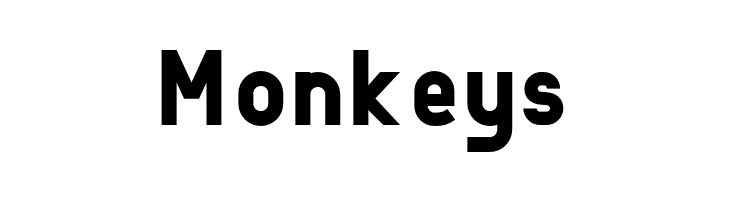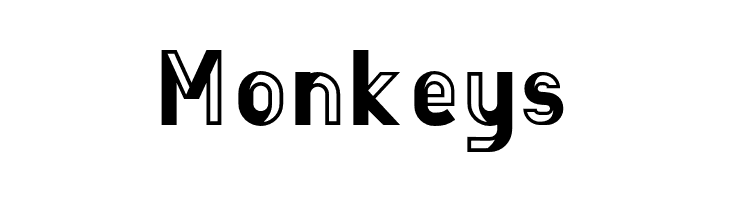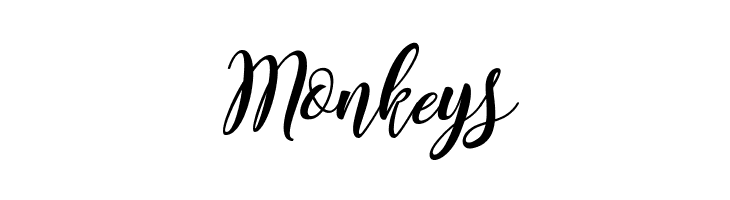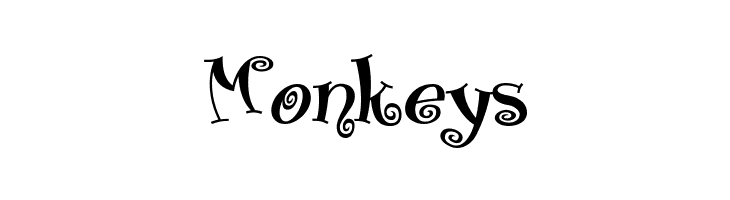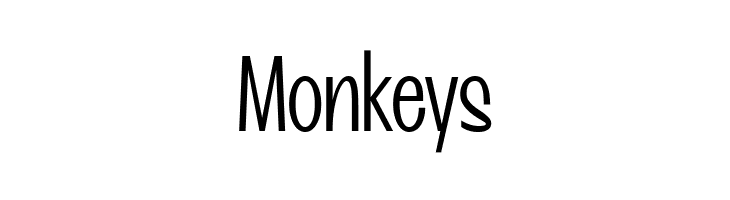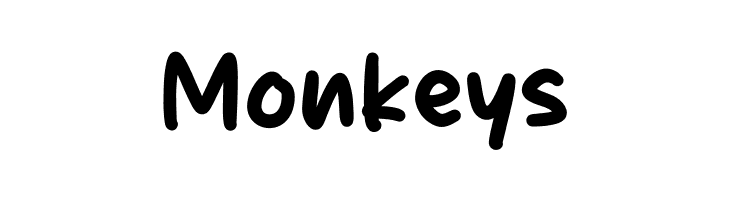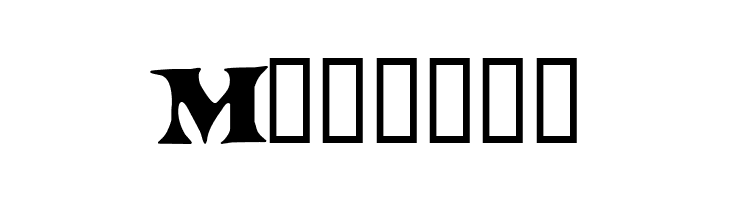
A bold, rounded handwritten font with a playful and informal style.
A dynamic and elegant script font with flowing, connected strokes.
A bold, high-contrast font with elegant curves and distinctive flourishes.
A whimsical, curly font with playful and decorative elements.
A bold, decorative font with angular edges and a stencil-like appearance.
A dynamic and elegant script font with flowing, cursive letterforms.
A modern, light, and condensed sans-serif font with a clean aesthetic.
A modern, minimalist font with geometric shapes and a sleek appearance.
A bold, modern font with clean lines and consistent thickness.
A bold and outlined font with a modern, artistic style.